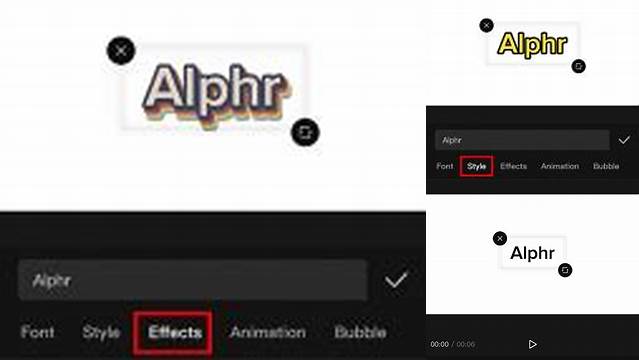
CapCut Font Guide: Top Choices & How To Use Them
Are you ready to supercharge your CapCut videos and make them pop? One of the easiest ways to do that is by choosing the perfect fonts. The right font can dramatically change the feel of your video, making it more engaging, professional, or just plain fun! Choosing the right font can be a game changer, whether you're a seasoned video editor or just getting started. So, we're going to dive deep into the best fonts to use on CapCut, offering you tips, tricks, and examples to get your creative juices flowing. Let's get this show on the road!
Understanding the Power of Fonts in Video Editing
Why are fonts so crucial, you ask? Well, think of them as the silent communicators of your video. They convey tone, personality, and brand identity. Imagine a serious documentary using a playful, cartoonish font – it just wouldn't fit, right? Fonts help you establish a visual hierarchy. They guide your viewers' eyes, telling them what's important and where to look. Headlines, subheadings, and body text all play different roles, and the fonts you choose should reflect those roles. A bold, eye-catching font might be perfect for a title, while a clean, readable font works best for subtitles. It's not just about what the words say but how they look.
For example, a font that's sleek and modern might be ideal for a tech review, while a more classic font could suit a historical video. Consistency is key, too. Sticking to a consistent font style throughout your video creates a unified look and feel, making your content more polished and professional. Don't forget about readability. The font needs to be easy to read, especially when it's overlaid on a video. Avoid overly ornate or thin fonts that might be hard to see. Think about the platform your video is for. Is it Instagram, YouTube, TikTok, or something else? Each platform has its own style, and the fonts you choose should align with that. Ultimately, the best fonts to use on CapCut are those that complement your video's content and help you tell your story effectively. By understanding the power of fonts, you can take your video editing to the next level and create content that truly resonates with your audience. So, buckle up, guys, because we're about to explore some awesome font choices!
Top Font Categories for CapCut Videos
Let's break down some of the best font categories to give you a great starting point. Each category has its own unique characteristics and suits different video styles. We'll guide you through the world of fonts, helping you find the perfect match for your next CapCut project.
Sans-Serif Fonts: Clean and Modern
Sans-serif fonts are the workhorses of the font world. They're clean, simple, and incredibly versatile. The term “sans-serif” means “without serifs,” which are the little strokes or “feet” at the end of letters. Because they lack these serifs, sans-serif fonts often appear more modern and streamlined. They are incredibly easy to read, making them perfect for subtitles, headings, and body text, especially when overlaid on video. Some popular sans-serif fonts include Helvetica, Arial, and Open Sans. They are great for conveying a sense of professionalism and clarity. They work well in a wide range of contexts, from corporate presentations to lifestyle vlogs. If you're going for a minimalist or contemporary look, these fonts are your go-to choice. They're also excellent for longer blocks of text because their simplicity reduces eye strain. Try using different weights of the same font family to create visual interest. For example, you can use a bold version for headings and a regular weight for body text. The versatility of sans-serif fonts makes them a must-have in your CapCut arsenal.
Serif Fonts: Classic and Elegant
On the flip side, we have serif fonts. These fonts have those small strokes (serifs) at the ends of the letter strokes, giving them a more traditional and elegant feel. Serif fonts exude sophistication and a timeless quality. Think about the fonts you see in newspapers and books – those are typically serif fonts. They can add a touch of class and professionalism to your video. Common examples include Times New Roman, Georgia, and Garamond. They're often great for titles or headings that you want to make stand out with a touch of formality. However, because of their more intricate design, serif fonts might not always be ideal for subtitles or small text on video. They can sometimes be harder to read, especially when overlaid on a busy background or when the text is small. If you choose a serif font, make sure it's easily readable. Pairing a serif font with a clean sans-serif font can create a balanced and visually appealing design. For example, you might use a serif font for your video titles and a sans-serif font for your subtitles, creating a nice contrast.
Script Fonts: Playful and Personal
Now, let's bring in a little flair with script fonts. These fonts mimic handwriting and add a touch of personality and creativity. Script fonts are perfect for a more casual, personal feel. They can convey emotions and add a sense of authenticity to your videos. They come in many forms, from elegant calligraphy to more playful, informal styles. Common examples include Brush Script, Lobster, and Pacifico. Keep in mind that script fonts can be tricky to use effectively. Because they're often more elaborate, they can be less readable than sans-serif or serif fonts, especially at smaller sizes. They are perfect for titles, quotes, or short bursts of text where you want to make a visual statement. Be careful not to overuse script fonts, as too much can make your video look cluttered. Choose a script font that fits the overall tone of your video. For instance, a whimsical script font would be great for a cooking tutorial or travel vlog, while a more elegant script might work well for a wedding video. Using a script font can bring a unique character to your videos. Always ensure that the font is clear and easily read.
Display Fonts: Bold and Eye-Catching
Finally, let's talk about display fonts. These fonts are designed to grab attention. Display fonts are bold, often quirky, and designed to make a statement. They're not always the most practical choice for body text, but they are fantastic for titles, headings, and any text where you want to make a strong visual impact. They come in all shapes and sizes, from retro styles to modern geometric designs. Some popular display fonts include Impact, Bebas Neue, and Montserrat Black. These fonts are all about standing out and adding a unique touch to your video. Use display fonts strategically. Due to their often elaborate nature, they can be difficult to read in large blocks of text. They're perfect for short titles, logos, or eye-catching graphics. Make sure they align with your video's overall aesthetic. For example, if your video has a retro vibe, a vintage-style display font would be a great choice. Always test your display font on your video to make sure it's readable against your background. The key is to use them sparingly and effectively.
Conclusion: Elevate Your Video Editing with the Right Fonts
So, there you have it, guys! Choosing the right fonts in CapCut can transform your videos from ordinary to extraordinary. By understanding the power of fonts, experimenting with different styles, and considering your audience, you can create videos that are not only visually appealing but also effectively communicate your message. From the clean lines of sans-serifs to the elegance of serifs and the flair of script fonts, the possibilities are endless. Remember to always prioritize readability, match the tone of your video, and create a visual hierarchy. Don't be afraid to experiment, and most importantly, have fun! Armed with this knowledge, you're ready to unleash your creativity and make some amazing videos. Happy editing, everyone!